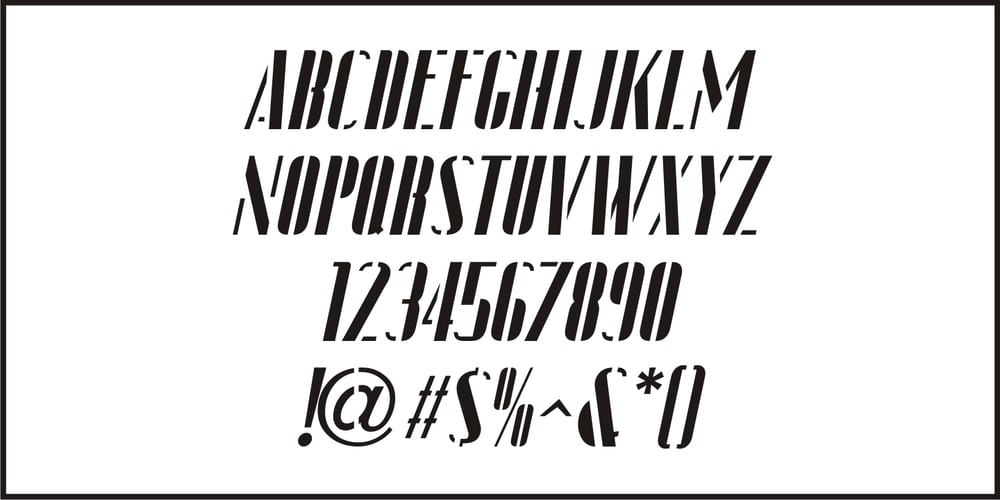
Garment Bag Stencil JNL Font Family was designed by Jeff Levine and published by Jeff Levine. Garment Bag Stencil JNL contains 2 styles and family package options. Searching the internet for interesting type ideas leads one to many unusual items for sale online. An antique, hand-cut metal stencil from France with the word “Bagagens” [luggage] provided a condensed Art Deco design in a semi-stencil format (some solid letters, others with traditional ‘breaks’ within the characters). The digital version of the type style has a more traditional stencil character set. Garment Bag Stencil JNL is available in both regular and oblique versions.